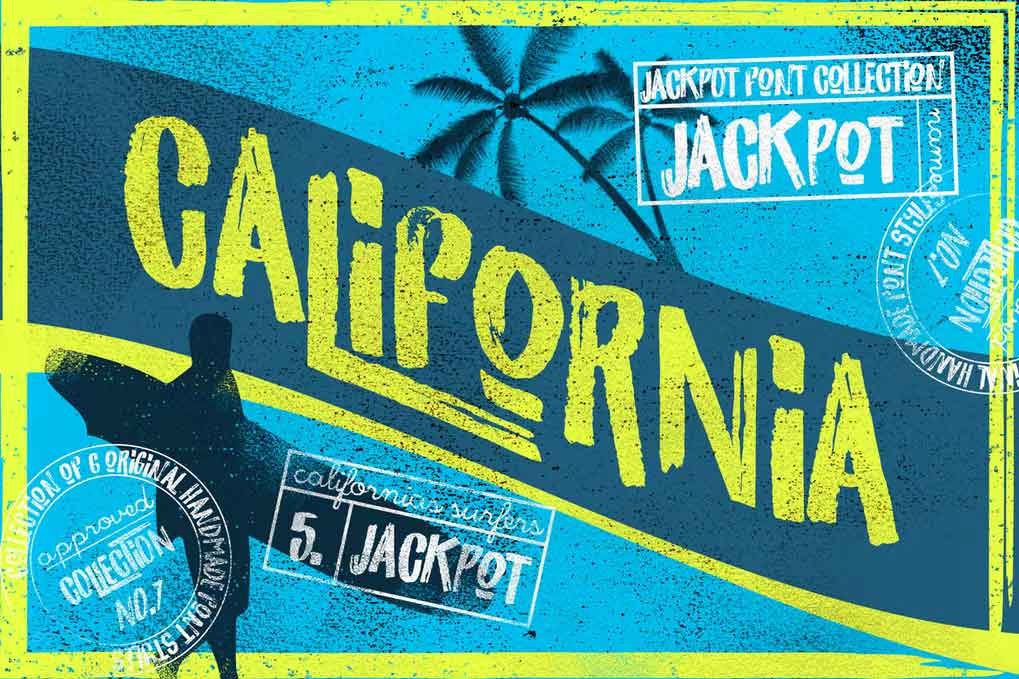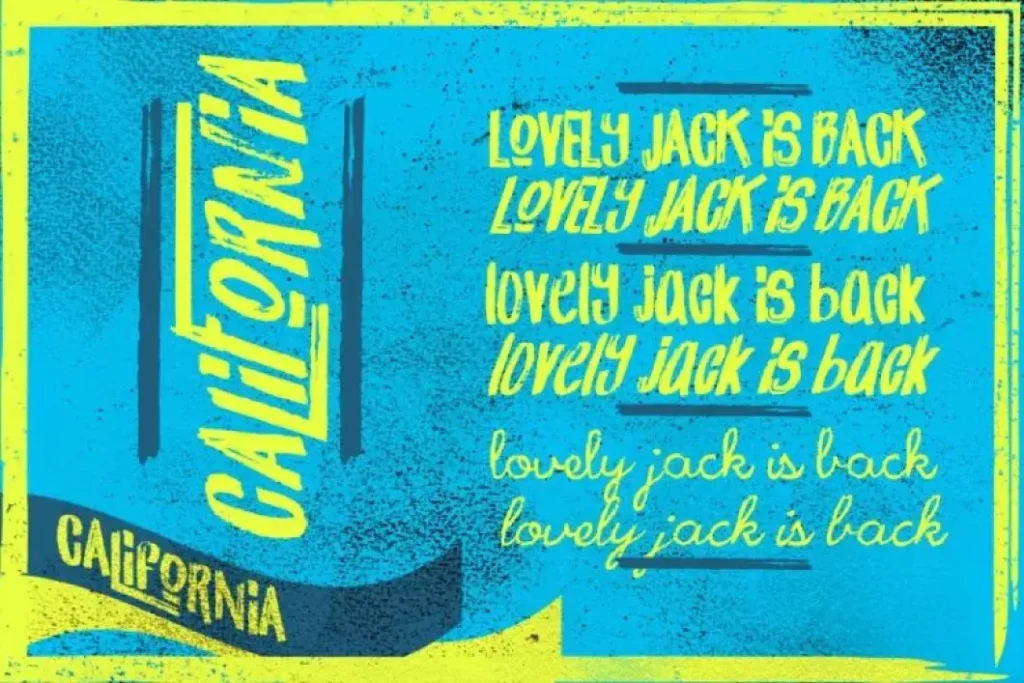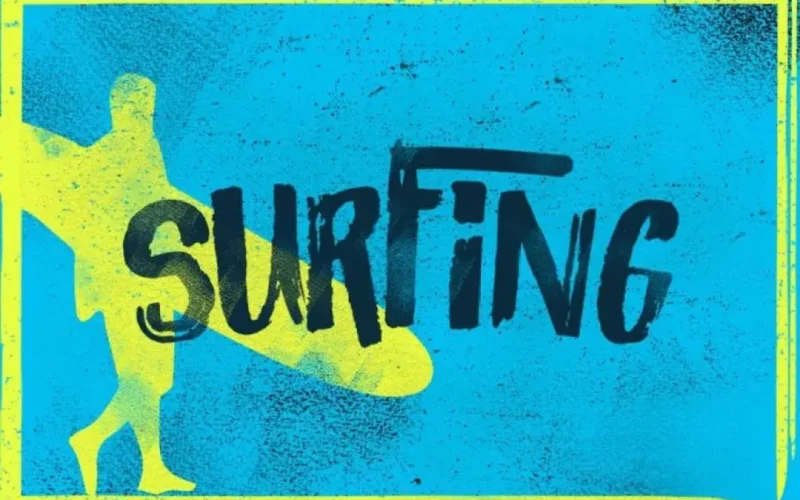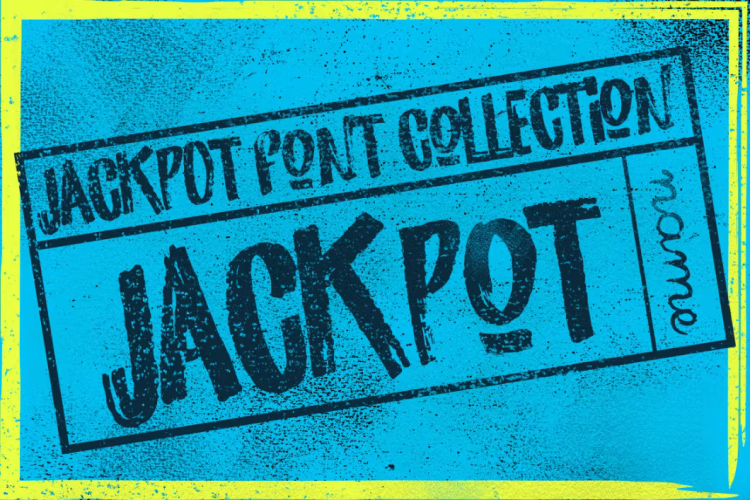
California Jackpot Font
California Jackpot Font is brush font including all US glyphs and it comes in regular,slant version and script version. Ideal for loud messages. Made with flat marker ad…
California Jackpot Font is brush font including all US glyphs and it comes in regular,slant version and script version.
Ideal for loud messages. Made with flat marker adding realistic moves in it. Very interesting to use for logos, name tags, handwritten quotes, product packaging, merchandise, social media & greeting cards .Also, ideal to make t-shirts design and other clothing products.
*JACKPOT – Hand brushed font including all uppercase letters which has a complete set of A-Z, and support for US glyphs letters. Combinate uppercase and lowercase letters to get interesting text styles.
*JACKPOT ITALIC – Italic hand brushed font including All Caps letters which has a complete set of A-Z, and support for US glyphs letters.
*JACKPOT SHORT Hand brushed font including all uppercase letters which has a complete set of A-Z, and support for US glyphs letters.
*JACKPOT SCRIPT Hand brushed script font including all lowercase letters which has a complete set of A-Z.
*JACKPOT LOWERCASE Hand brushed font including all uppercase and lowercase letters which has a complete set of A-Z, and support for US glyphs letters. Combinate uppercase and lowercase letters to get interesting text styles.
*JACKPOT SHORT ITALIC 17° slant hand brushed font including all uppercase letters which has a complete set of A-Z.
*JACKPOT SCRIPT ITALIC 17° slant hand brushed script font including all lowercase letters which has a complete set of A-Z.
*JACKPOT LOWERCASE ITALIC 17° slant hand brushed font including all uppercase and lowercase letters which has a complete set of A-Z, and support for US glyphs letters. Combinate uppercase and lowercase letters to get interesting text styles.
Where California Jackpot Font works best
California Jackpot Font brings a personal, handwritten warmth to invitations, menus and place cards.
Craft brands — coffee, cosmetics, bakery — use scripts like California Jackpot Font for signature-style logos and labels.
Pair California Jackpot Font with a plain sans for quotes, stories and Pinterest pins that feel handmade.
What is California Jackpot Font good for?
California Jackpot Font is a Script And Handwritten typeface tagged Branding, Brush, Craft, Handwritten. It works well for headlines, logos, posters, social media graphics and branding projects that need a distinctive script and handwritten look.